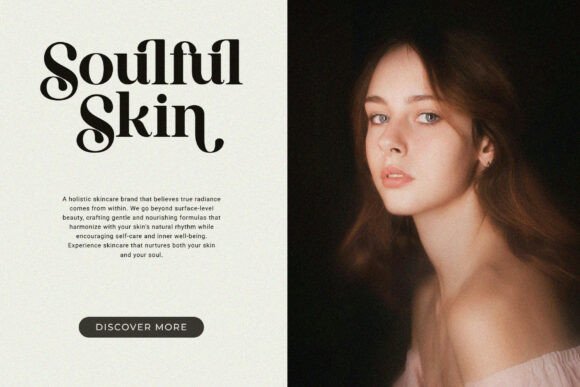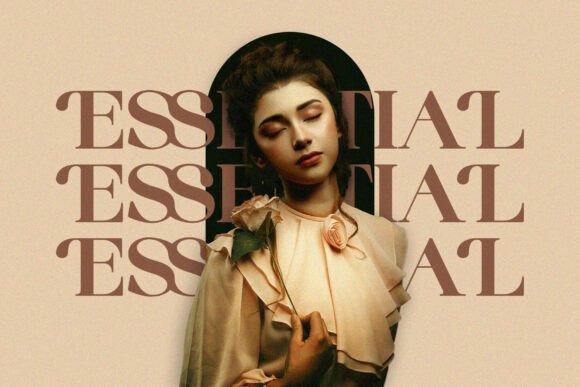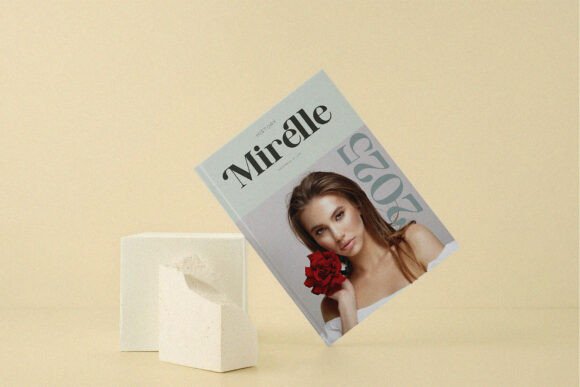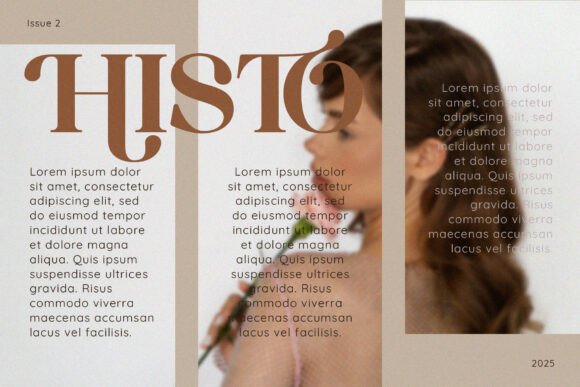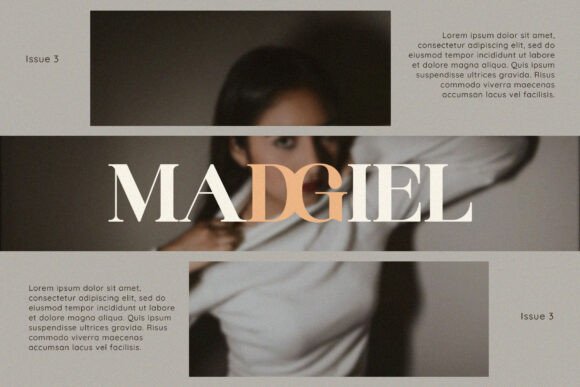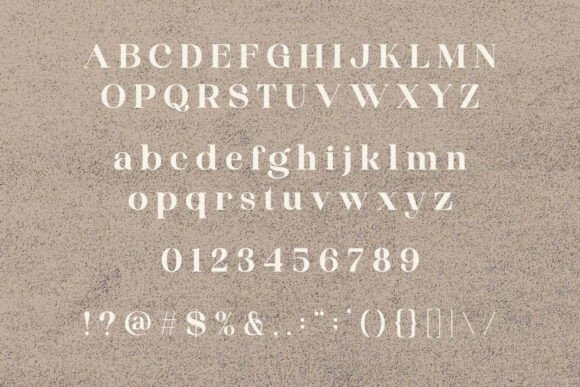
Introduction to Milavora Font
Have you ever been captivated by the perfect blend of classic elegance and modern sophistication in a design? For designers, it’s a moment of pure magic when all the elements come together to create something truly stunning. It’s a moment that makes all the hard work worth it, and it’s what drives us to continuously push the boundaries of creative excellence.
For those who crave that special something, we’re excited to introduce you to the Milavora Font, a design resource that embodies the perfect balance of style and sophistication. With its refined curves, high contrast strokes, and stylish ligatures, this elegant display serif font is the ultimate tool for designers looking to elevate their creative project to new heights.
Whether you’re working on a high-end branding project, a fashion editorial, or premium product packaging, the Milavora Font is the perfect choice for anyone seeking to create a timeless and luxurious visual identity. And the best part? It’s available for free download, making it an accessible high quality design element for designers of all levels.
Key Features of Milavora Font
- High-quality design resource for creative projects, ideal for use in digital art, graphic design, and web development.
- Features a transparent background, allowing for seamless integration with any design or image.
- Supports a wide range of languages, making it a versatile choice for international creative projects.
- Designed with a high resolution of 300 DPI, ensuring crisp and clear text display in various sizes and applications.
- Includes a range of weights and styles, providing flexibility for designers to choose the perfect font for their creative project.
- Perfect for use in digital art, graphic design, web development, and other creative fields, where a high-quality and unique font is essential.
Honest Review: Milavora Font
As a designer, I’m always on the lookout for high-quality design resources that can elevate my creative projects. The Milavora Font is one such resource that caught my attention. I was excited to dive in and see what it has to offer.
- ✨ High-quality design: The Milavora Font boasts a sleek and modern design that’s perfect for a wide range of creative projects.
- ✨ Transparent background: The font’s transparent background makes it easy to use in creative projects that require a lot of layering and blending.
- ⚠️ Limited character set: The font’s character set is somewhat limited, which may not be suitable for designers who need to work with complex text.
- ⚠️ Not ideal for small text: The font may not be the best choice for small text, as it can become difficult to read.
Overall, I’m impressed with the Milavora Font, but I do think it has its limitations. If you’re looking for a high-quality font for a creative project, it’s definitely worth considering. Just be aware of the potential limitations before making a decision.
How to Use Milavora Font
Milavora Font is a high-quality, versatile design resource perfect for any creative project. With its transparent background, you can easily integrate it into your design without any background distractions.
Tips for Getting the Most Out of Milavora Font
Experiment with different font sizes, colors, and combinations to create unique and eye-catching designs. Use it to create headers, titles, and body text to add a professional touch to your projects.
Milavora Font is perfect for any creative project, including:
– Business cards
– Brochures
– Flyers
Q: Does the Milavora Font have a transparent background?
No, the Milavora Font is a solid font with no transparent background. However, its high-quality design makes it suitable for use on various backgrounds, from simple to complex designs.